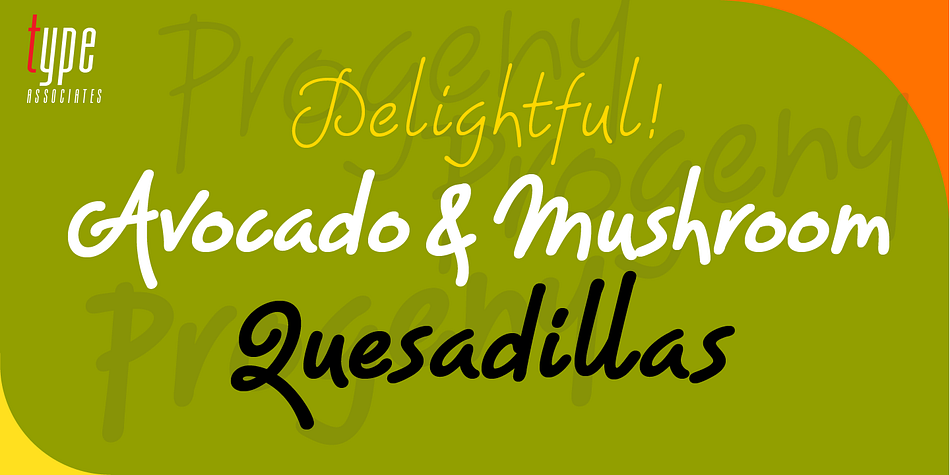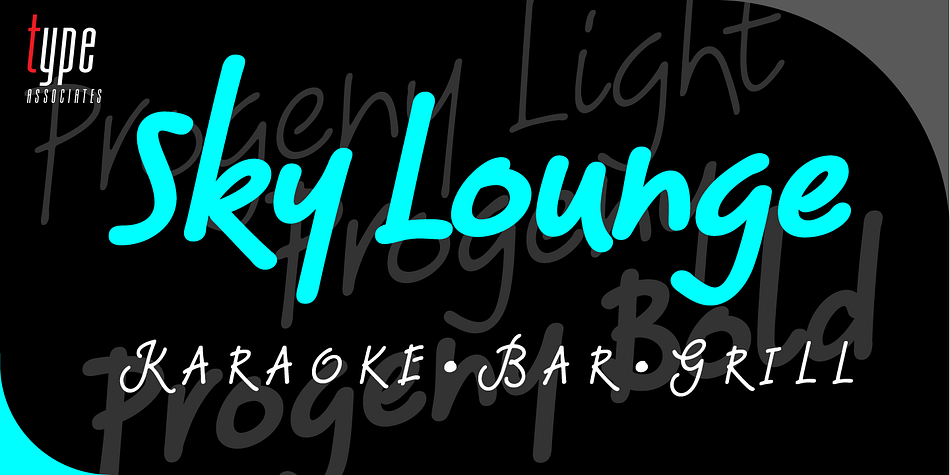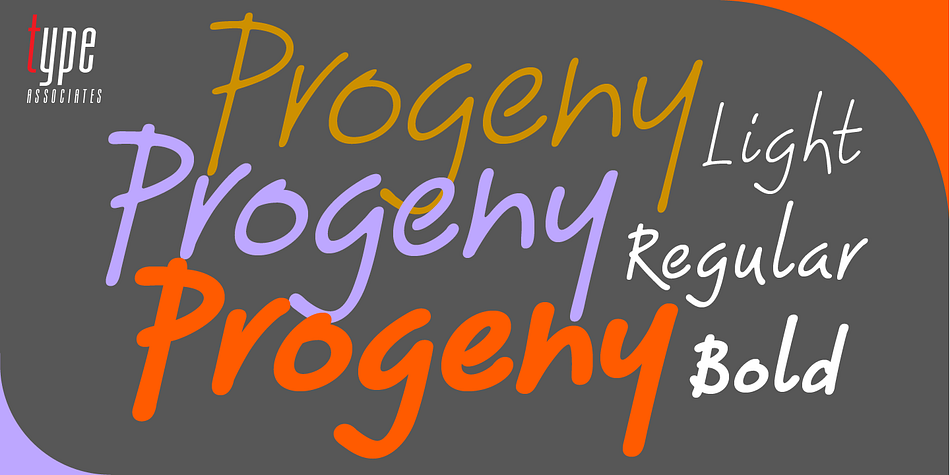
Progeny is a hand drawn font family. This typeface has three styles and was published by Type Associates.
Progeny is a single-stroke freehand informal script that began life as a logo for a fast food company. That logo design was rejected but when I added a suite of swash caps and a few extra ligatures and my trademark underlines it all started to come together as a font. Then I used it successfully for another logo and I proceeded to complete the weight variations that emerged during the first logo design, rounding the lighter weights to give a more friendly, softer look. That treatment didn’t suit the bold weight but sharp inner corners did not detract from the robust, legible headliner that emerged. All weights work in all-lowercase, all-capitals, lowers with swash or regular initial caps and surprisingly – in all-caps with swash initials.